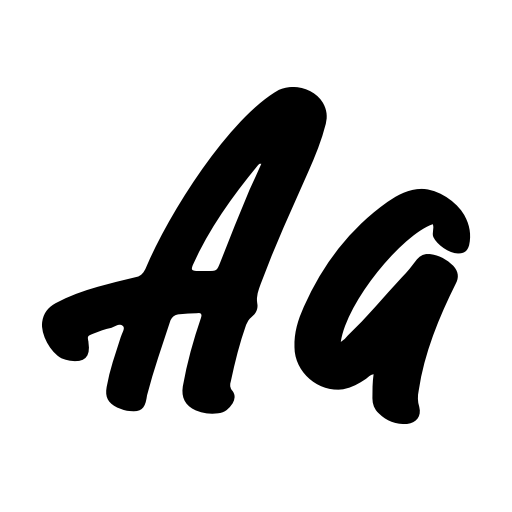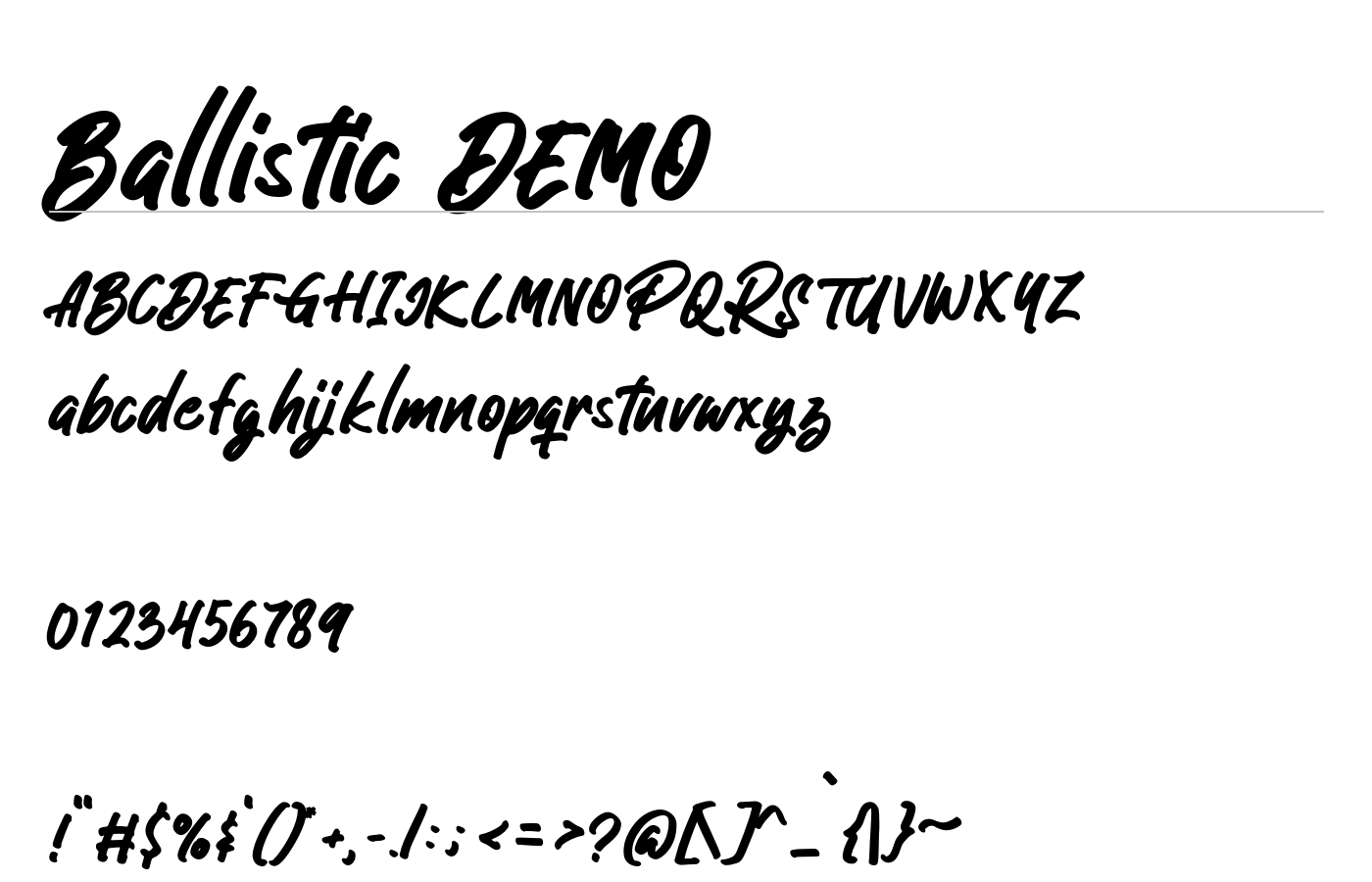
Ballistic DEMO is a bold, energetic script font with a handwritten feel, featuring medium contrast and smooth, flowing strokes that create a lively yet readable appearance. Its casual style, with slightly condensed letterforms and dynamic curves, makes it perfect for designs that want to convey a friendly, approachable, and creative vibe. This font works well for branding, packaging, posters, and headlines where a personal and informal touch is desired.
Ballistic DEMO Font
About Ballistic DEMO Font
| Font family | Ballistic DEMO Font |
| Designer | Gustian Agung Asprilla |